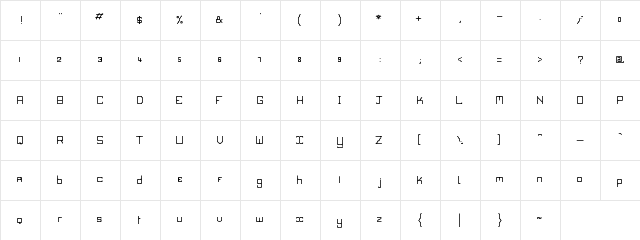
mega-pixel Regular
| Designer | ivaneschecka |
Design Context for mega-pixel Typeface
mega-pixel celebrates the constraints of early digital type, turning pixel geometry into a distinctive and immediately recognisable style.
A natural choice for retro game titles, chiptune music branding, 8-bit UI, and digital nostalgia projects.
Pro Tip: Pair mega-pixel with flat colour palettes and simple geometric UI elements to reinforce its digital aesthetic.